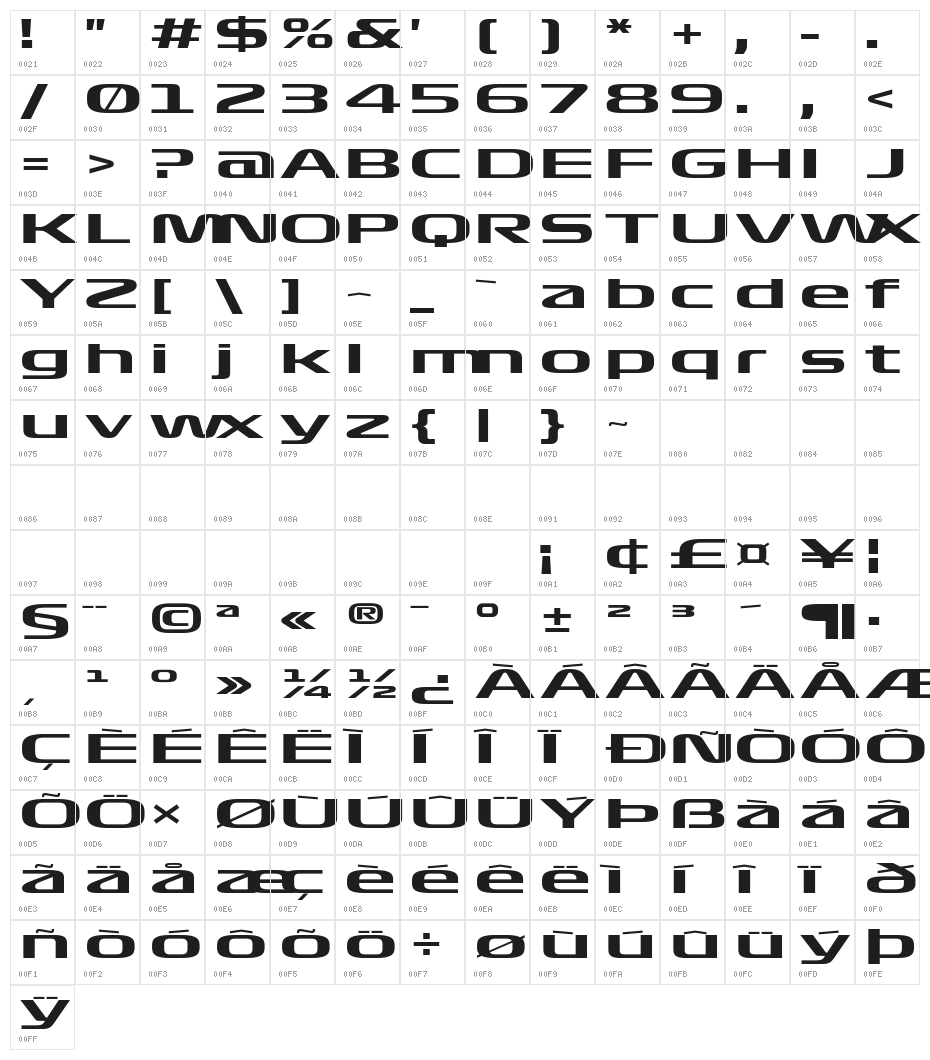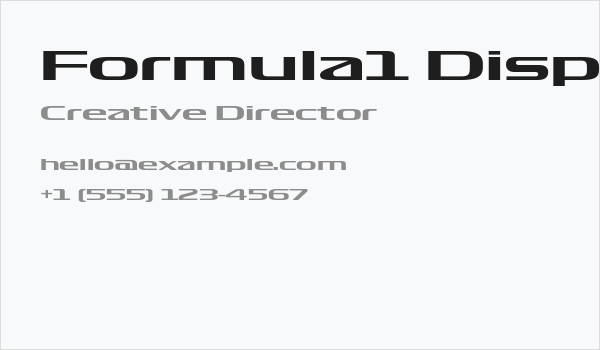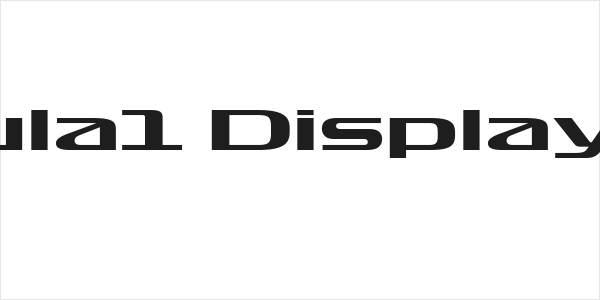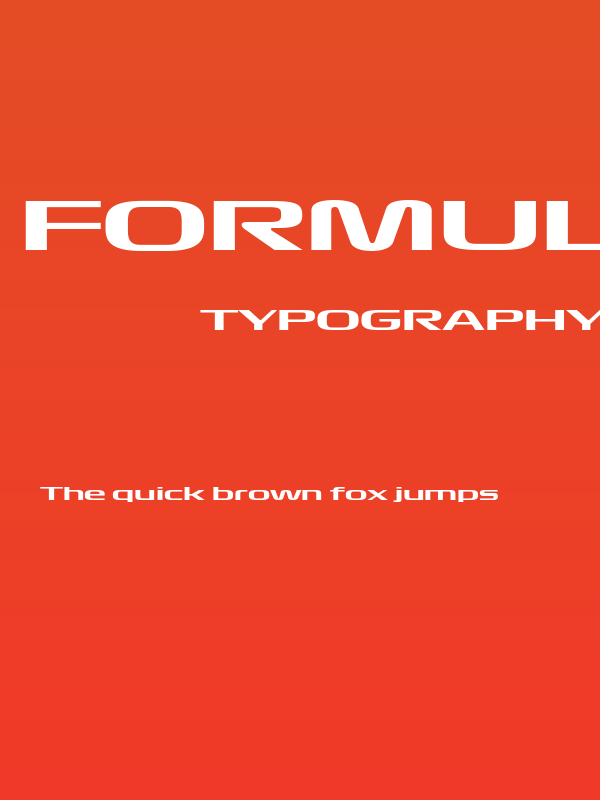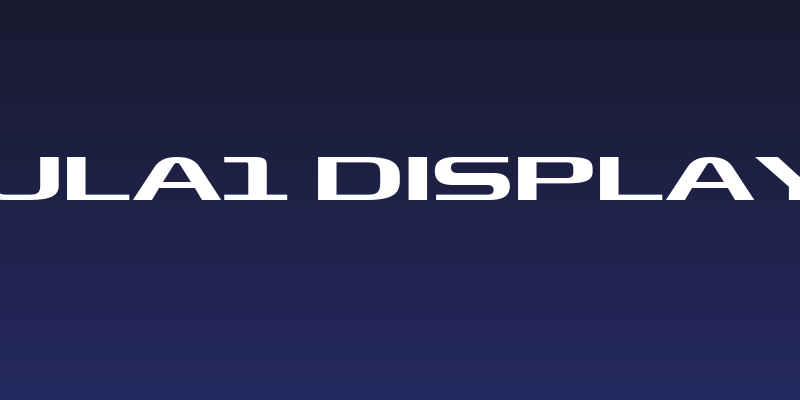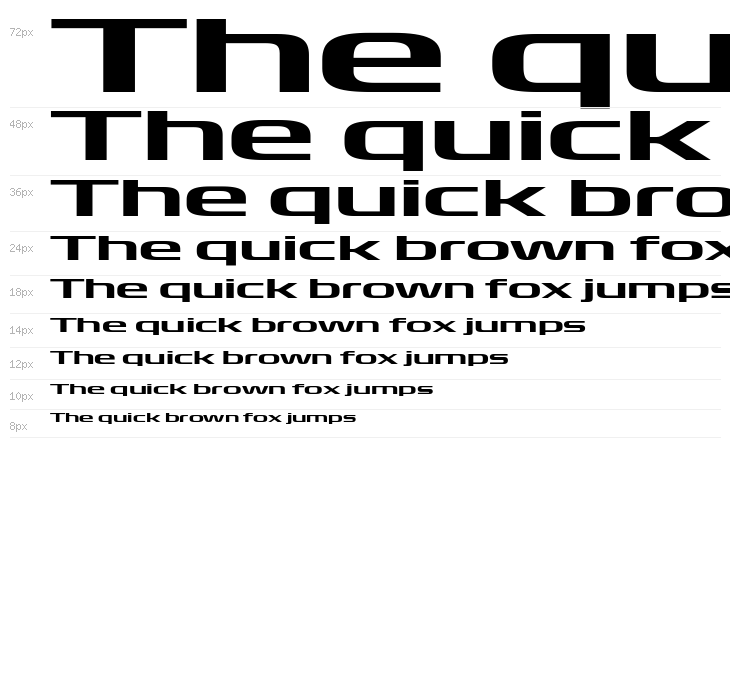
Formula1 Display Wide Font
Formula1 Display Wide Description
This font features a bold and modern design with wide, geometric letterforms. The uppercase characters are strong and assertive, while the lowercase letters maintain a consistent style with rounded edges and clean lines. The numerals are equally bold, ensuring readability and impact. Special characters are designed with the same attention to detail, making them suitable for various applications. The overall appearance is sleek and contemporary, ideal for projects that require a dynamic and futuristic look.
WidthExpanded
Use CaseHeadlines, Logos, Branding
Proposed ProjectsIdeal for branding, advertising, sports-related designs, and any project that requires a modern and dynamic aesthetic.